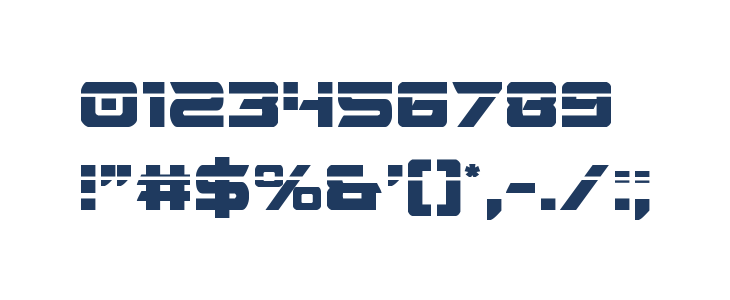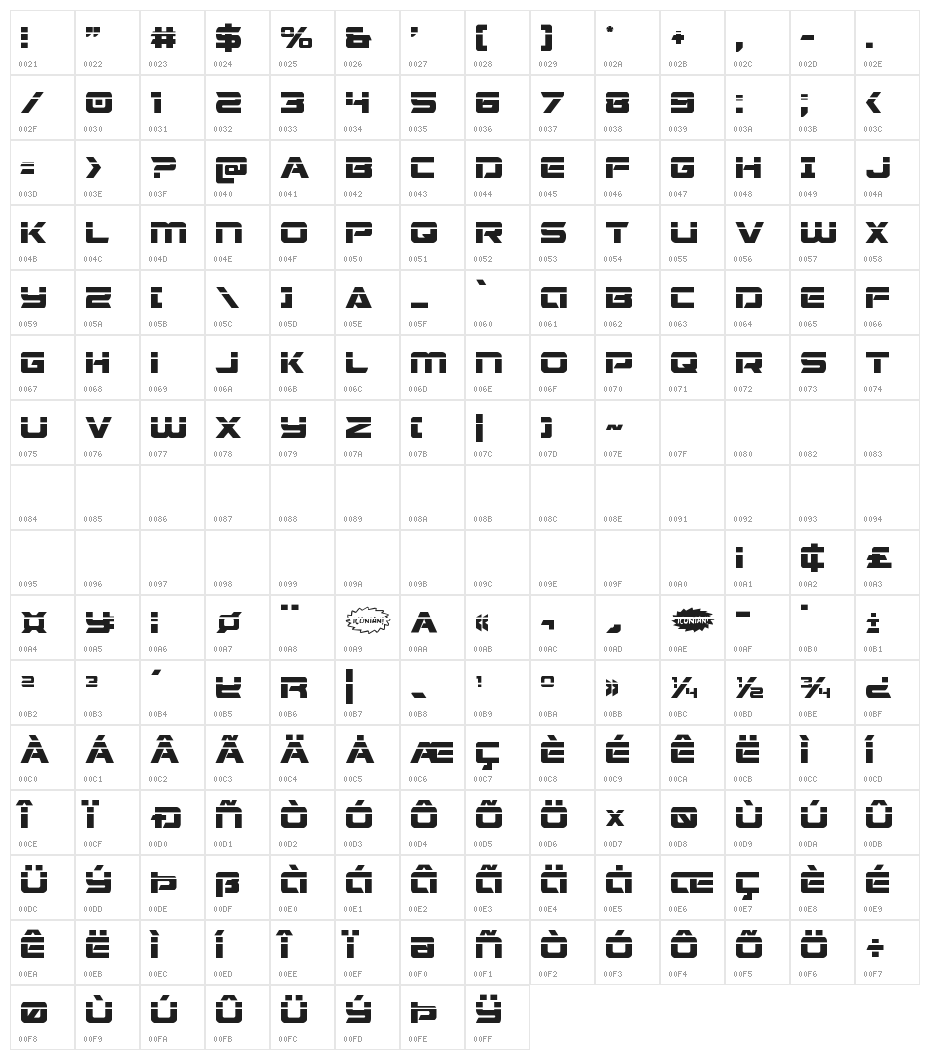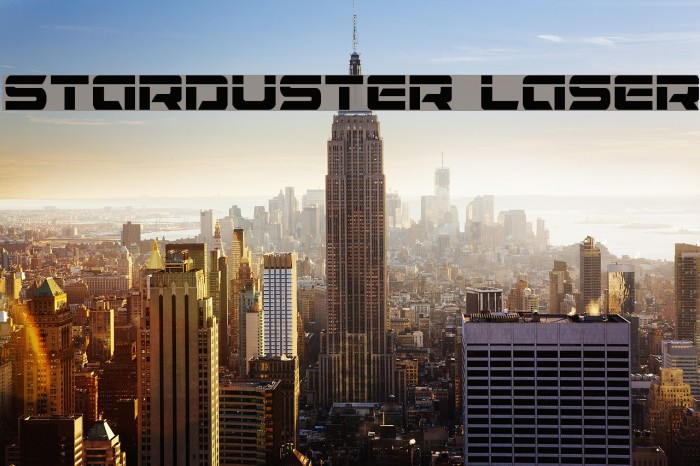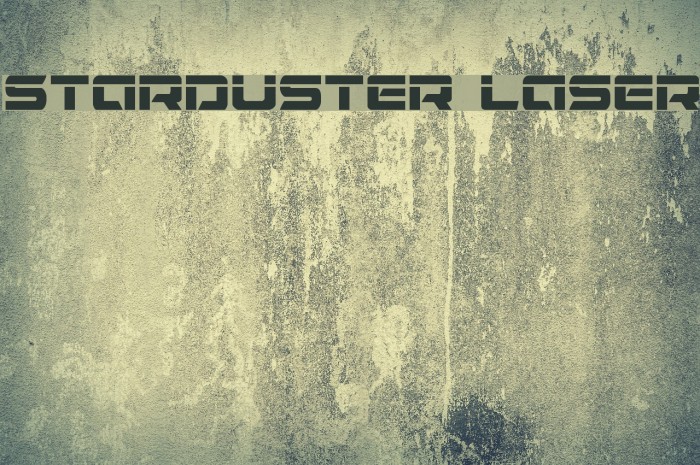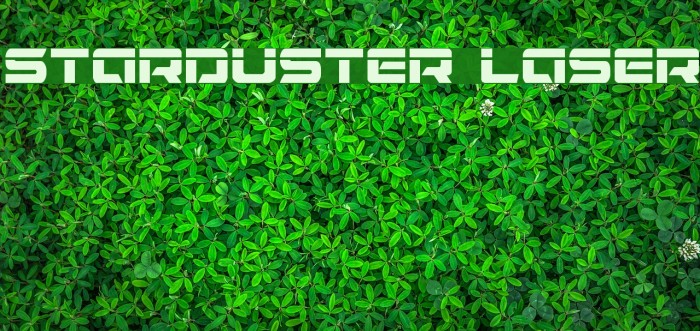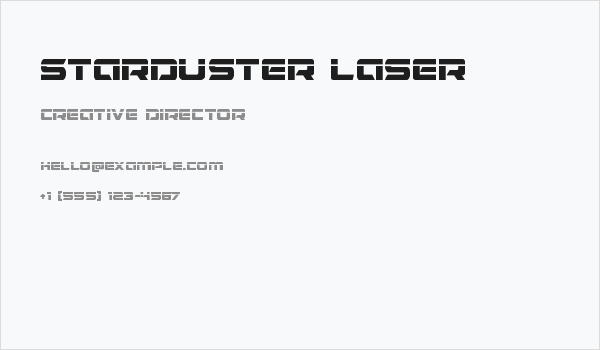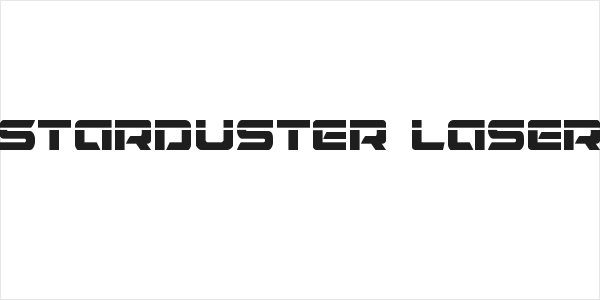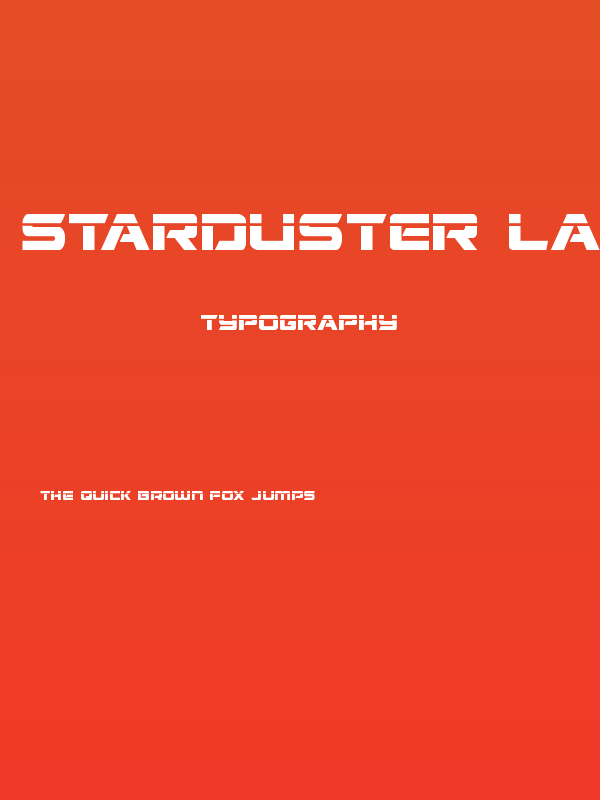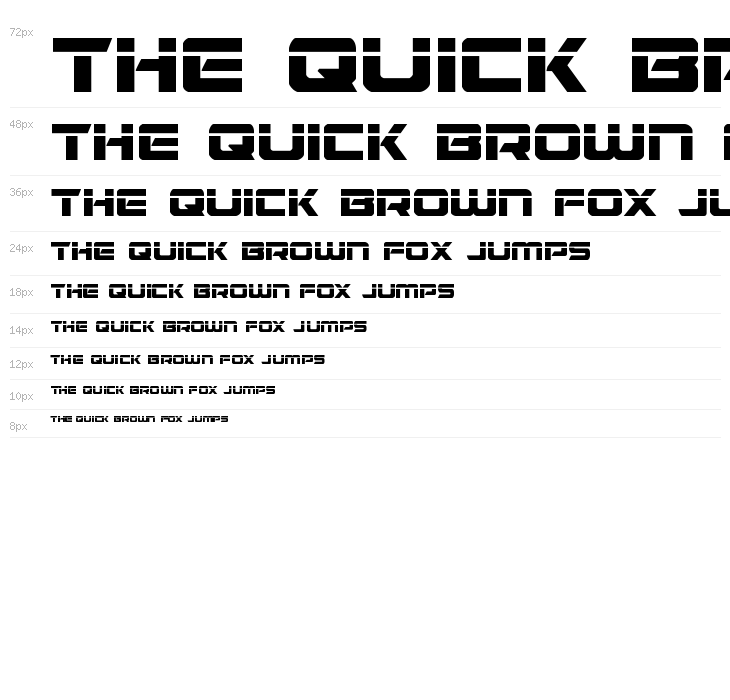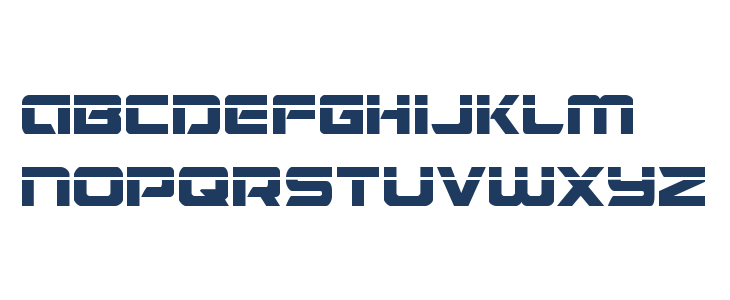
Starduster Laser Font
Starduster Laser Description
This font features a futuristic and bold design with a distinct geometric style. The characters are constructed with sharp angles and straight lines, giving it a modern and tech-inspired appearance. The uppercase letters are particularly striking, with a blocky and robust form that commands attention. The lowercase letters maintain the same angular design, ensuring consistency throughout the typeface. Numbers and special characters are equally bold and geometric, making them stand out in any design. This font is ideal for projects that require a strong, modern aesthetic.
| Proposed Projects | Ideal for sci-fi themed designs, technology branding, video game titles, and futuristic posters. |